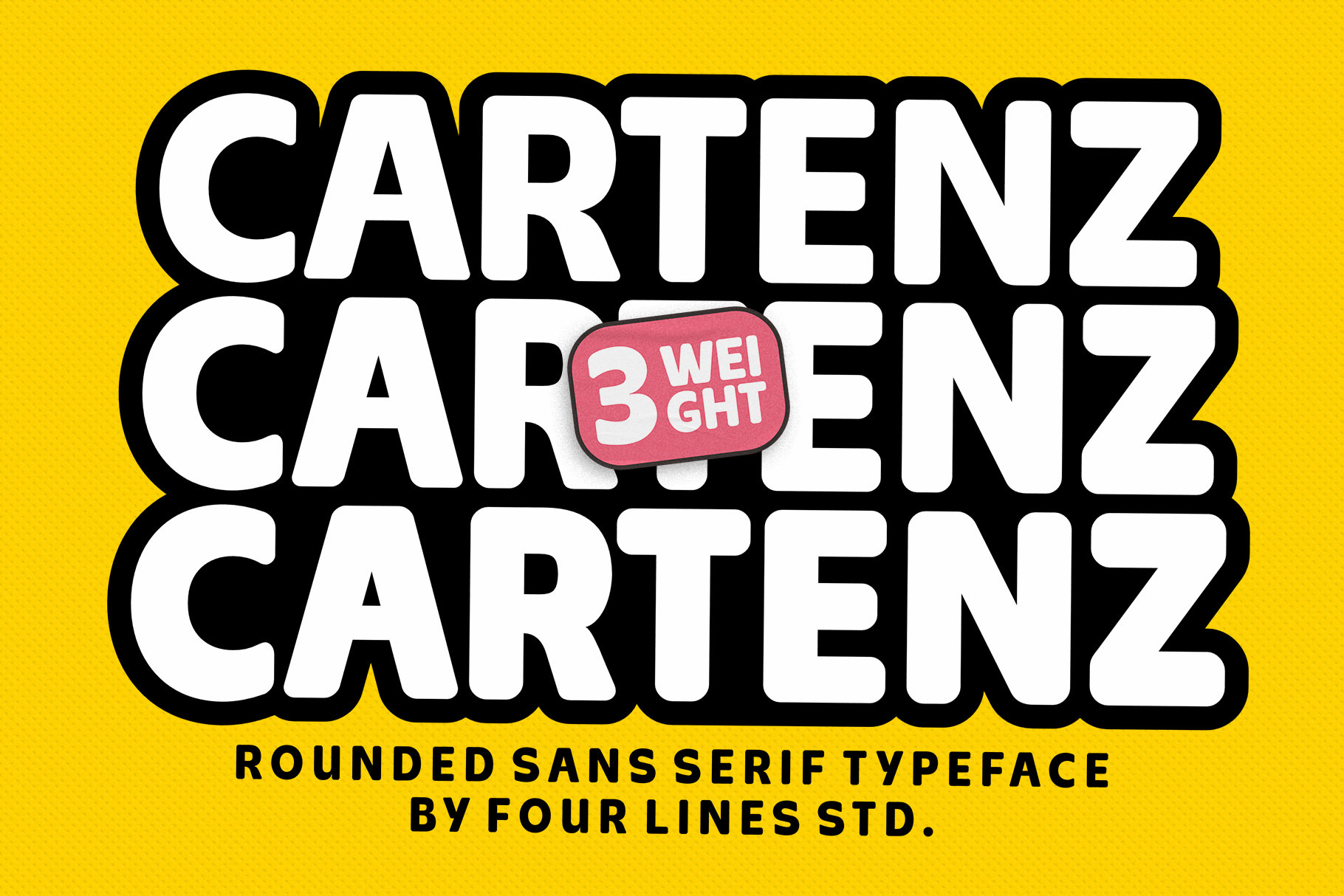
50% Cartenz – Sans Serif Font
The Cartenz Typeface's sleek and fluid contours impart a sense of comfort and accessibility to any design. Its polished lines and curved edges emit a contemporary minimalism, enabling versatility across various applications. Whether it's branding, marketing materials, or creative displays.